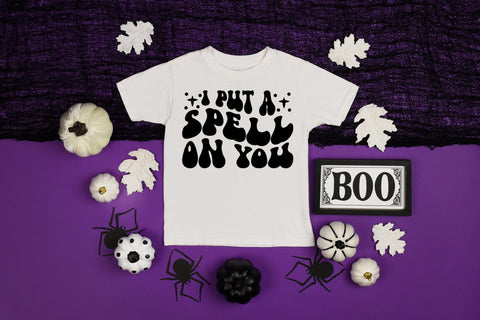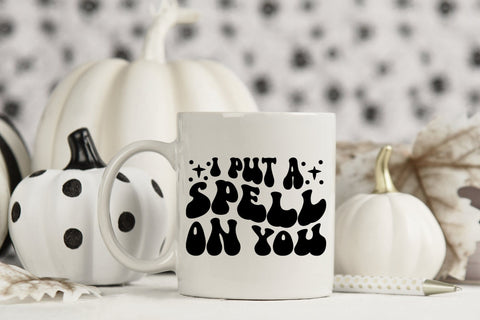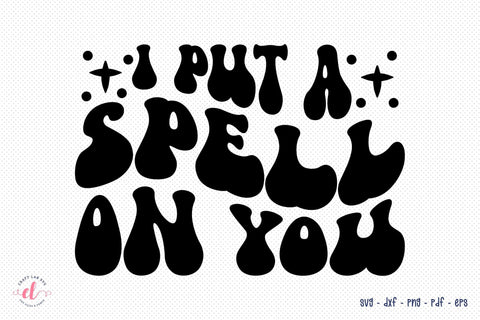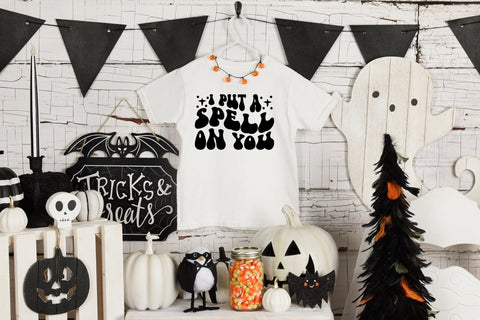
I Put a Spell on You SVG | Retro Halloween SVG
Celebrate Halloween in Retro style with our curated SVG design. Add a touch of charm to your haunting decorations and crafts. Perfect for creating t-shirts, mugs, tote bags, pillows, and much more!